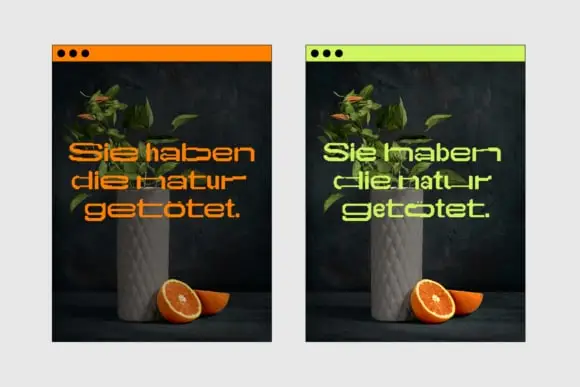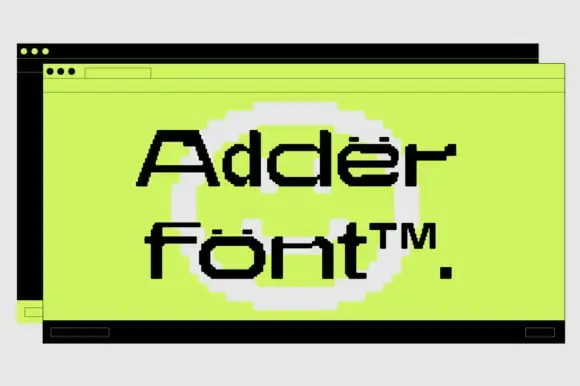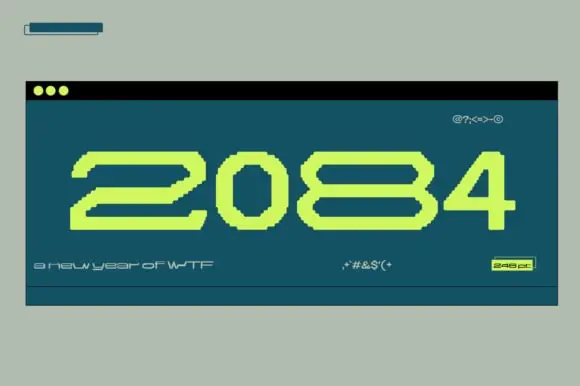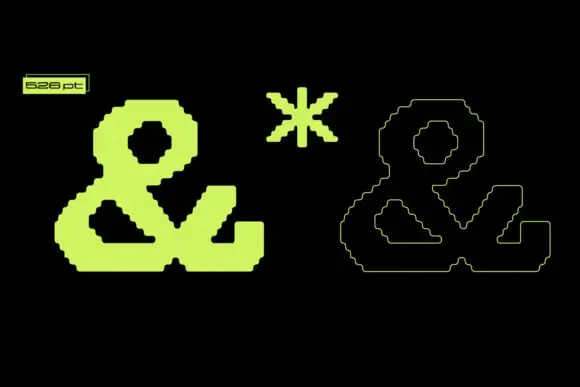
Yai.Salinas-Addër Font
The Yai.Salinas-Addër Font is a unique typeface that combines elegance and modernity, making it perfect for a variety of design projects. With its distinct character, this font can enhance your branding, logos, and promotional materials.
• Styles: Available in regular and bold weights